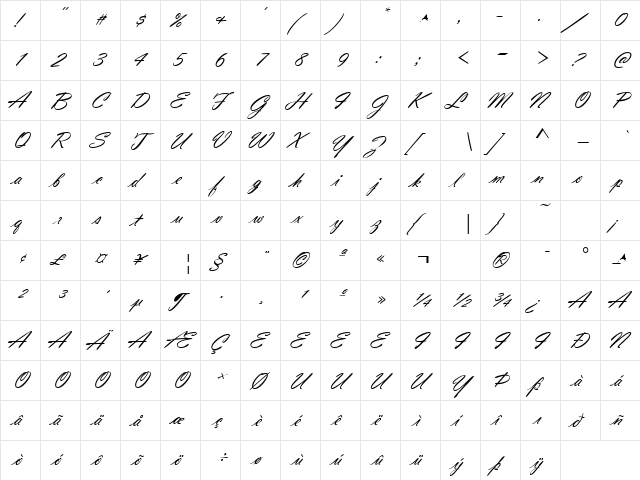
Consul Script Ssk Regular
Design Context for Consul Script Ssk Typeface
Consul Script Ssk flows with the natural rhythm of handwritten lettering, making it ideal for designs that call for warmth and personal expression.
Font Pairing: Combine Consul Script Ssk with a simple geometric sans for maximum contrast — the tension between flowing curves and clean structure is a classic typographic pairing.
Pro Tip: Use Consul Script Ssk for short runs of text — names, titles, or taglines. Extended body copy in script faces tires the eye quickly.